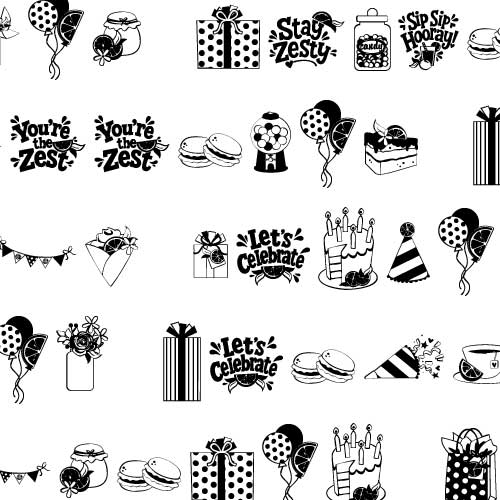
DB Pink Lemonade Party - DB
This adorable doodlebat font features 26 fun lemon-themed party images. Perfect for cards, crafts, gifts, planner stickers, parties, scrap book pages, decor and more!